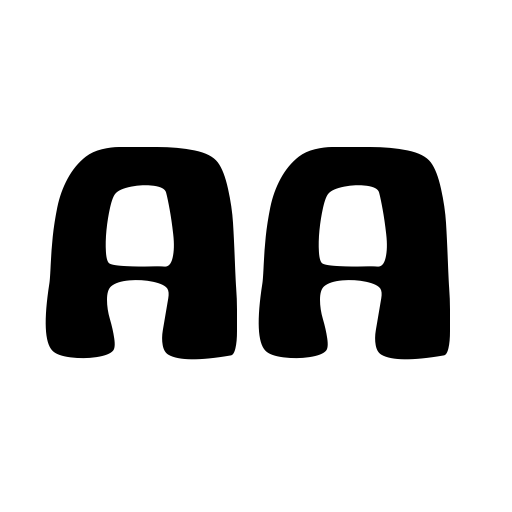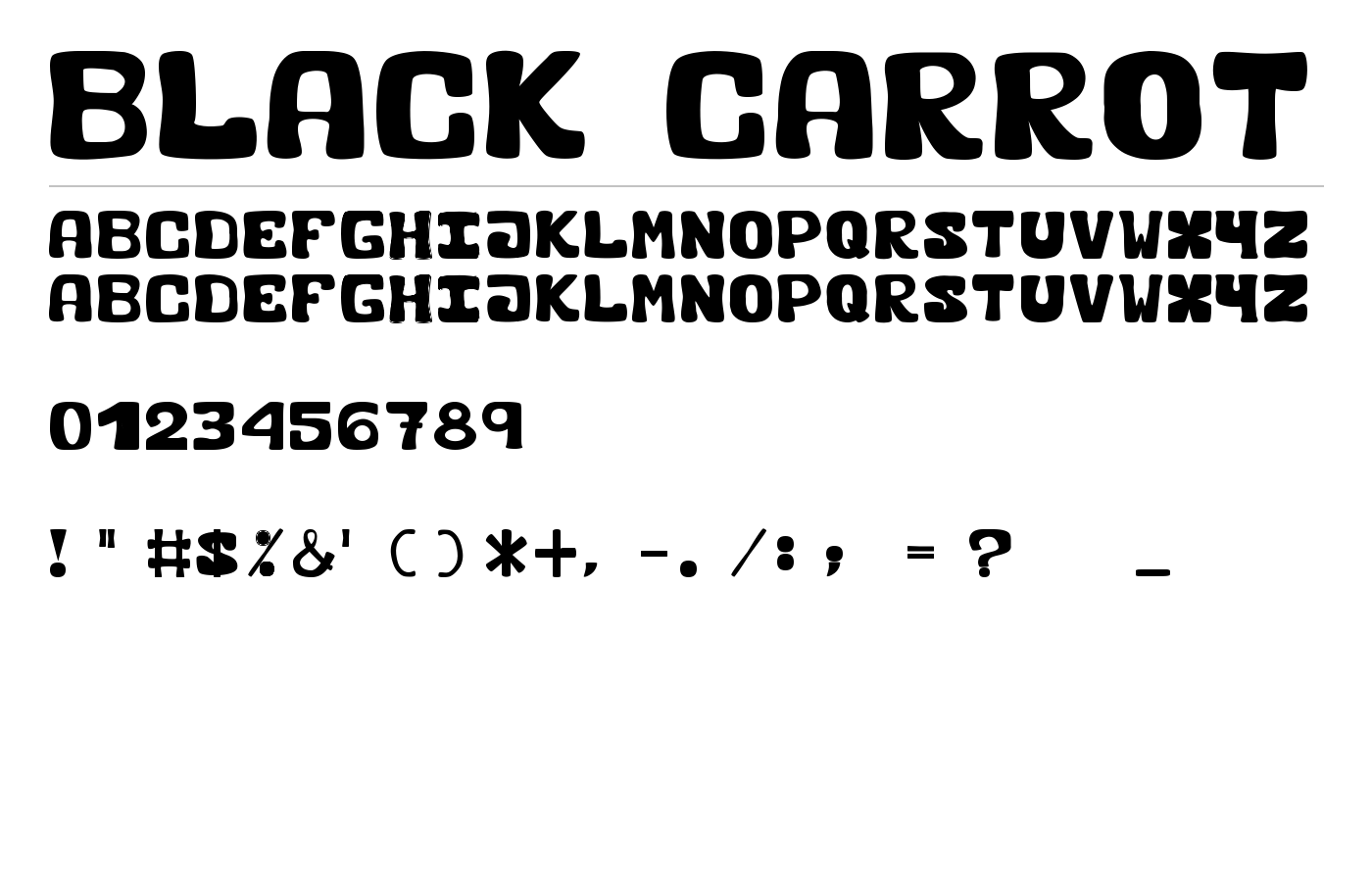
Black Carrot is a bold, playful sans serif font characterized by its rounded, chunky letterforms and uneven, hand-crafted feel. Its strong, heavy weight and wide proportions give it a friendly and approachable personality, making it ideal for informal branding, children's products, and creative designs that want to convey fun and warmth. This font works especially well in headlines and logos where a unique, eye-catching style is desired.
Black Carrot Font
About Black Carrot Font